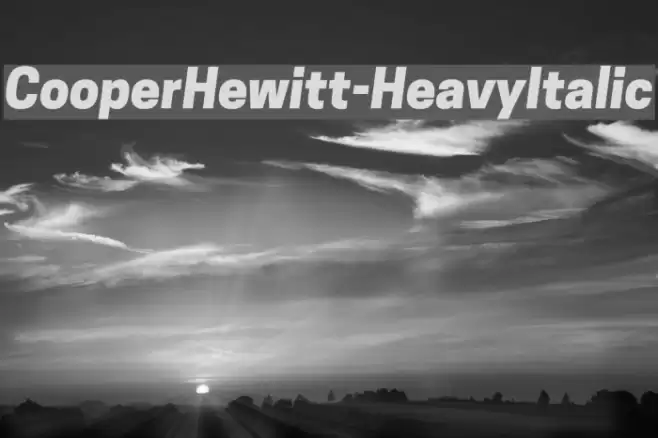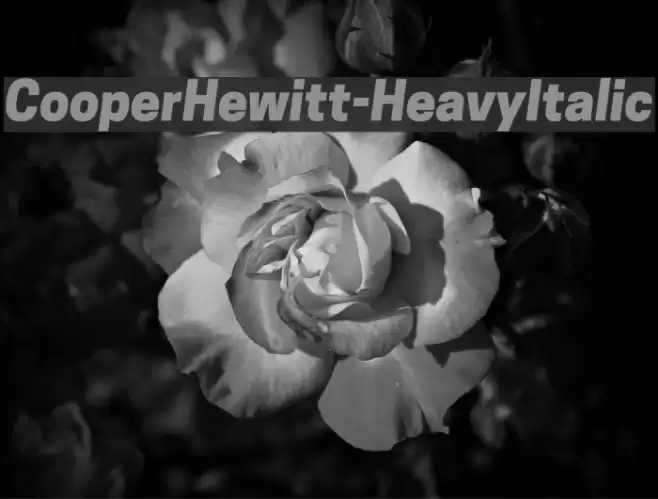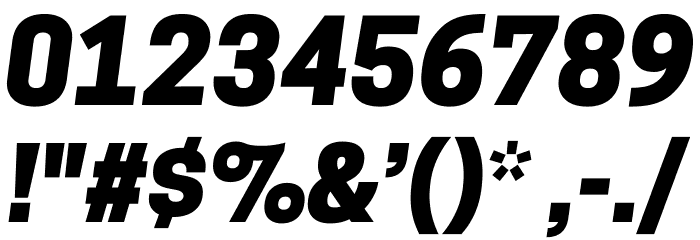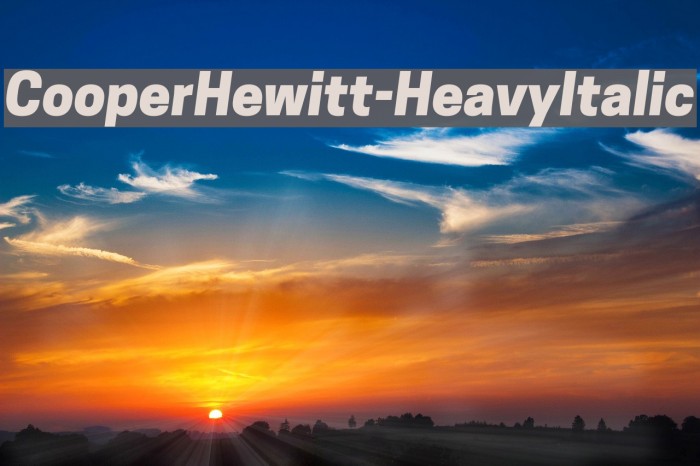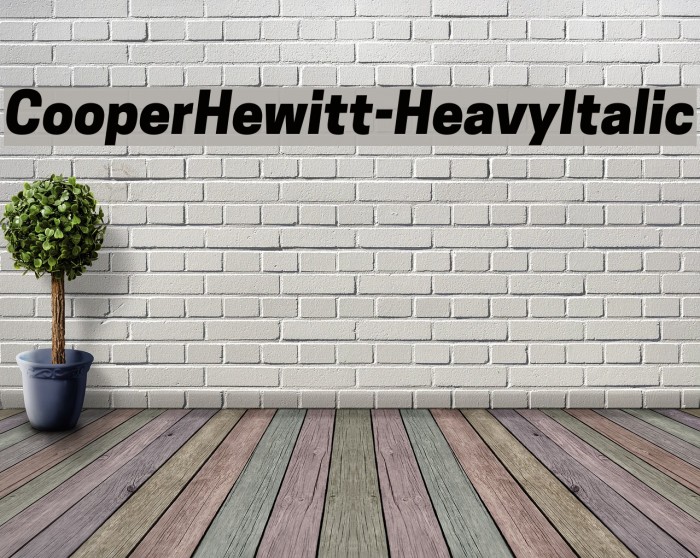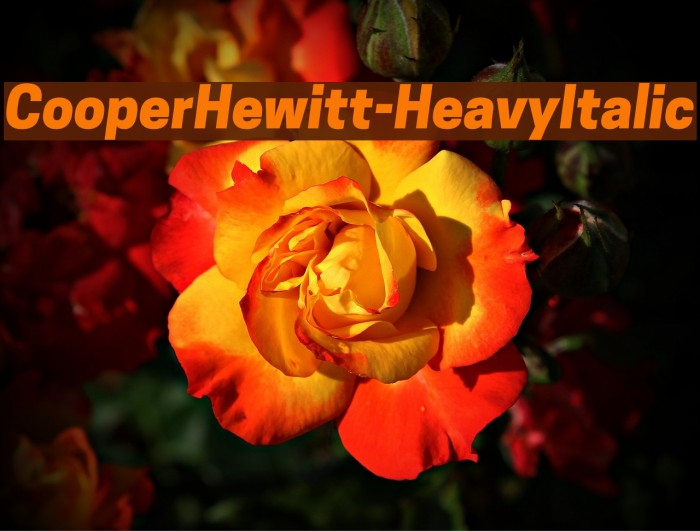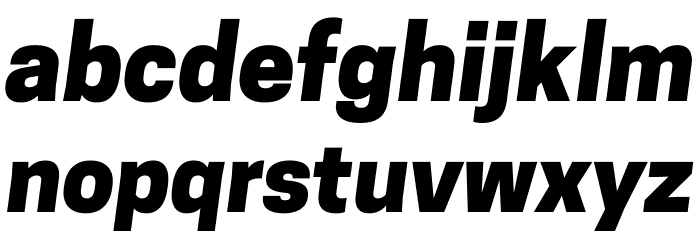
CooperHewitt-HeavyItalic Font
CooperHewitt-HeavyItalic Description
This font features a bold and dynamic style with a heavy weight and italic slant, giving it a strong presence. The characters are wide and have a slightly condensed appearance, enhancing their impact. The strokes are consistent in thickness, providing a uniform look across all characters. The font's modern aesthetic is suitable for making a statement, with its clean lines and smooth curves. It includes a full set of uppercase and lowercase letters, numbers, and a variety of special characters, making it versatile for different design needs.
A bold, heavy, and italic font with a modern and impactful style from Sans Serif fonts.
- Proposed Projects: Ideal for headlines, posters, branding, and any project requiring a strong visual impact.